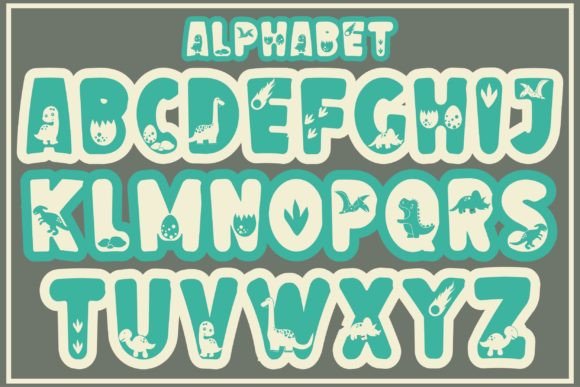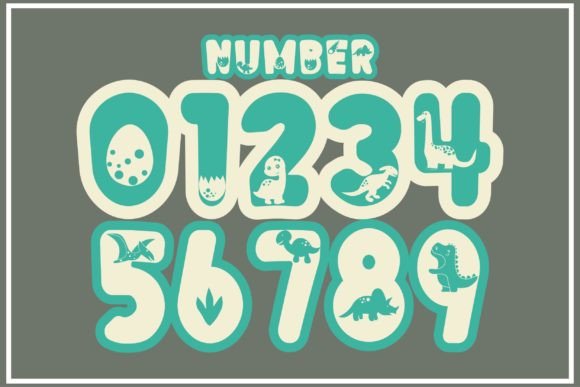
Dino Mode Font: Unleash Your Creativity with a Prehistoric Twist
Are you ready to take your design game to the next level with a font that’s as fun as it is fierce? Look no further than the Dino Mode Font, a captivating decorative font that’s sure to transport you and your audience back to the Mesozoic Era. With its playful dinosaur theme, this font is perfect for creating outstanding typography designs that kids and adults alike will love.
What is Dino Mode Font?
Dino Mode Font is a unique and creative typeface that combines the nostalgia of dinosaurs with a modern and edgy aesthetic. This decorative font features bold, playful, and adventurous lettering that’s sure to make your designs stand out from the crowd. Whether you’re a designer, crafter, or simply a dinosaur enthusiast, this font is the perfect tool to add a prehistoric twist to your projects.
Perfect for Kids’ Designs
Kids love dinosaurs, and with Dino Mode Font, you can create designs that are sure to delight them. From t-shirt designs to paper crafts, this font is perfect for creating fun and engaging projects that kids will adore. Imagine creating a custom t-shirt design for a young paleontologist with a bold, dino-themed font that reads “Dino Explorer” or “King of the Dinosaurs.” The possibilities are endless, and with Dino Mode Font, you can let your creativity run wild.
Versatile and Multifaceted
Dino Mode Font is more than just a one-trick pony. Its versatility makes it perfect for a wide range of design applications, including:
- Kids’ t-shirt designs
- Paper crafts and DIY projects
- Web graphics and digital art
- Packaging and branding
Whether you’re a professional designer or a crafter, this font is sure to inspire you to create something amazing.
Why Choose Dino Mode Font?
So why choose Dino Mode Font over other decorative fonts on the market? Here are just a few reasons:
- Unique and eye-catching design: This font is sure to grab attention and make your designs stand out.
- Easy to use: With its clean and simple design, Dino Mode Font is easy to read and use in a variety of contexts.
- High-quality graphics: This font is designed with high-quality graphics that will look great in any design.
- Perfect for kids: If you’re designing for kids, this font is a great choice. It’s fun, playful, and engaging.
Tips for Using Dino Mode Font
Here are a few tips for getting the most out of Dino Mode Font:
- Use it bold and bright: This font is designed to make a statement, so don’t be afraid to use it in bold and bright colors.
- Experiment with different sizes: Try using the font in different sizes to create visual interest and add depth to your designs.
- Pair it with other fonts: Dino Mode Font pairs well with other decorative and sans-serif fonts. Try experimenting with different font combinations to create a unique look.
Dino Mode Font is a fun and creative decorative font that’s perfect for designers, crafters, and dinosaur enthusiasts alike. With its unique and eye-catching design, this font is sure to add a prehistoric twist to your projects. Whether you’re creating kids’ t-shirt designs, paper crafts, or web graphics, Dino Mode Font is the perfect tool to help you unleash your creativity and make your designs roar.